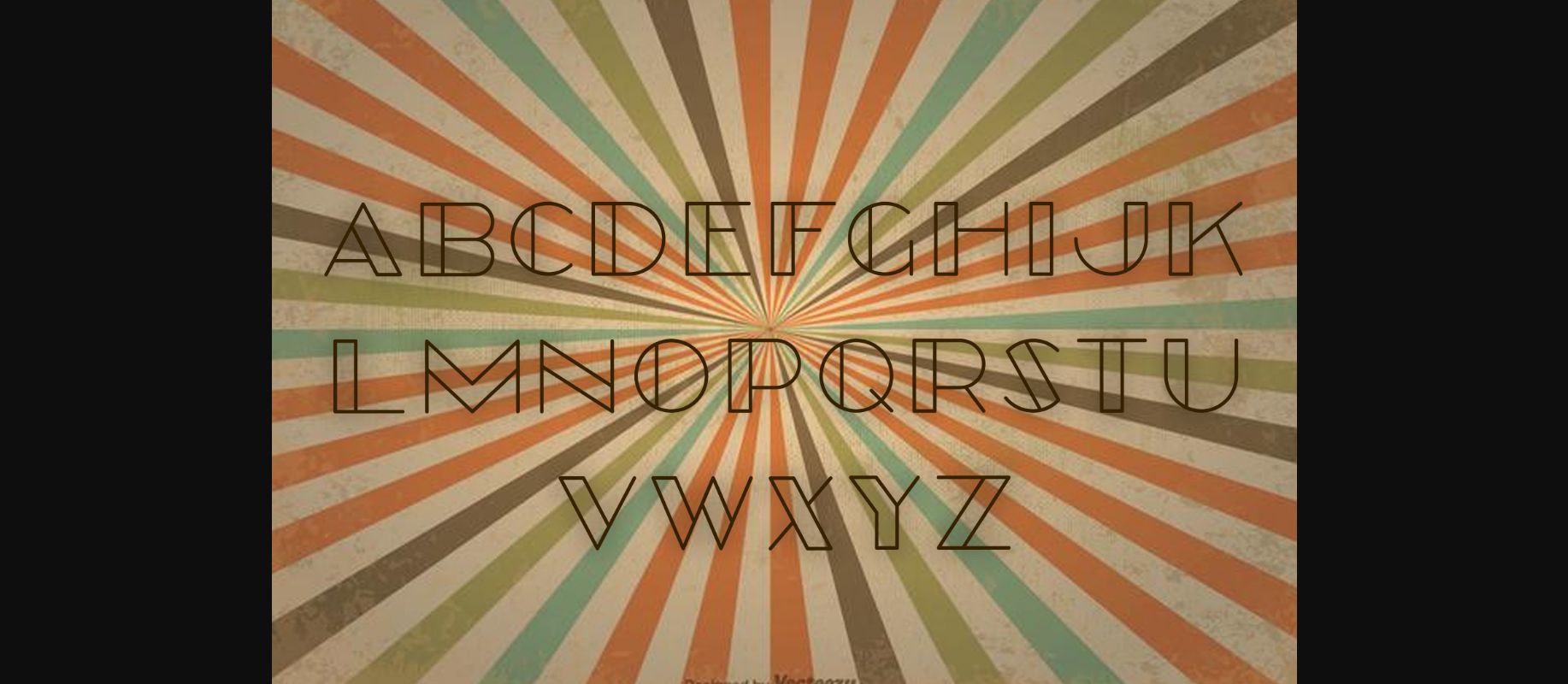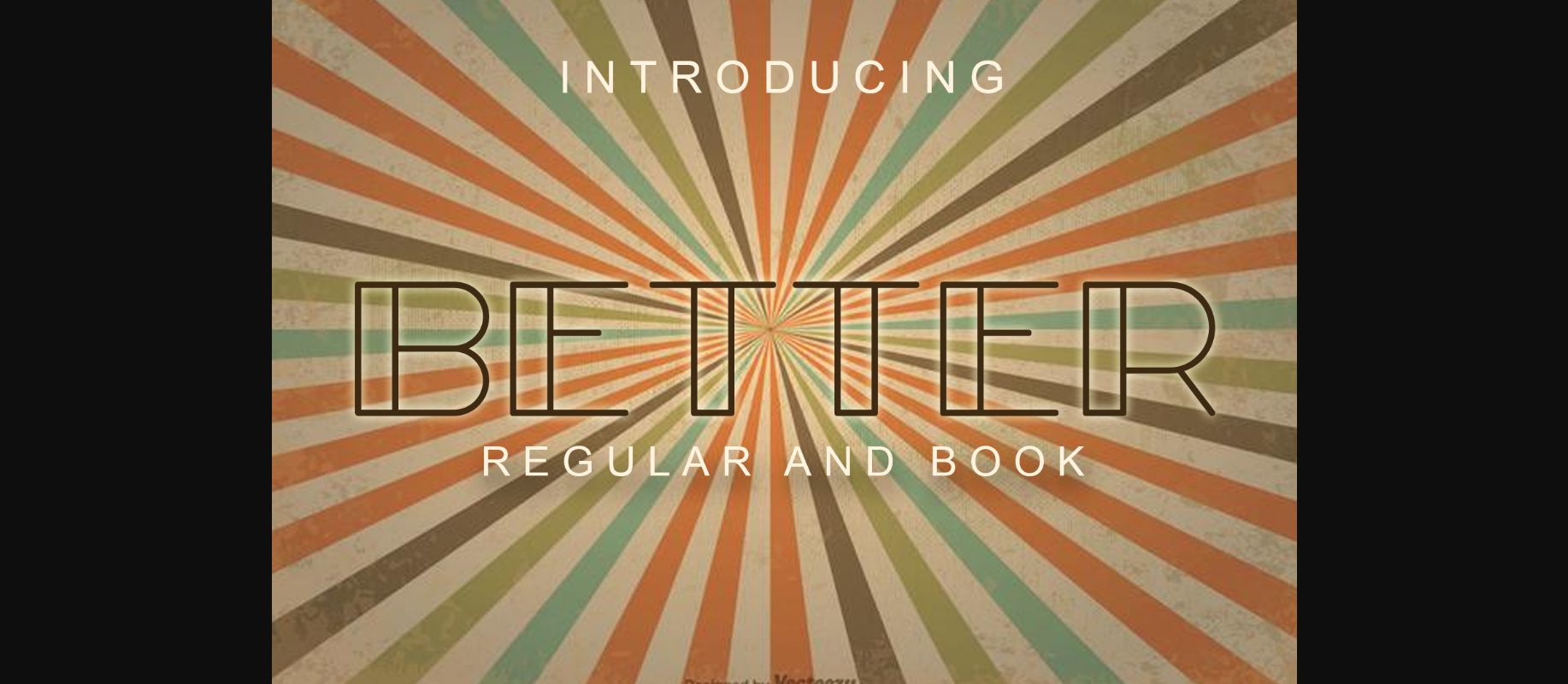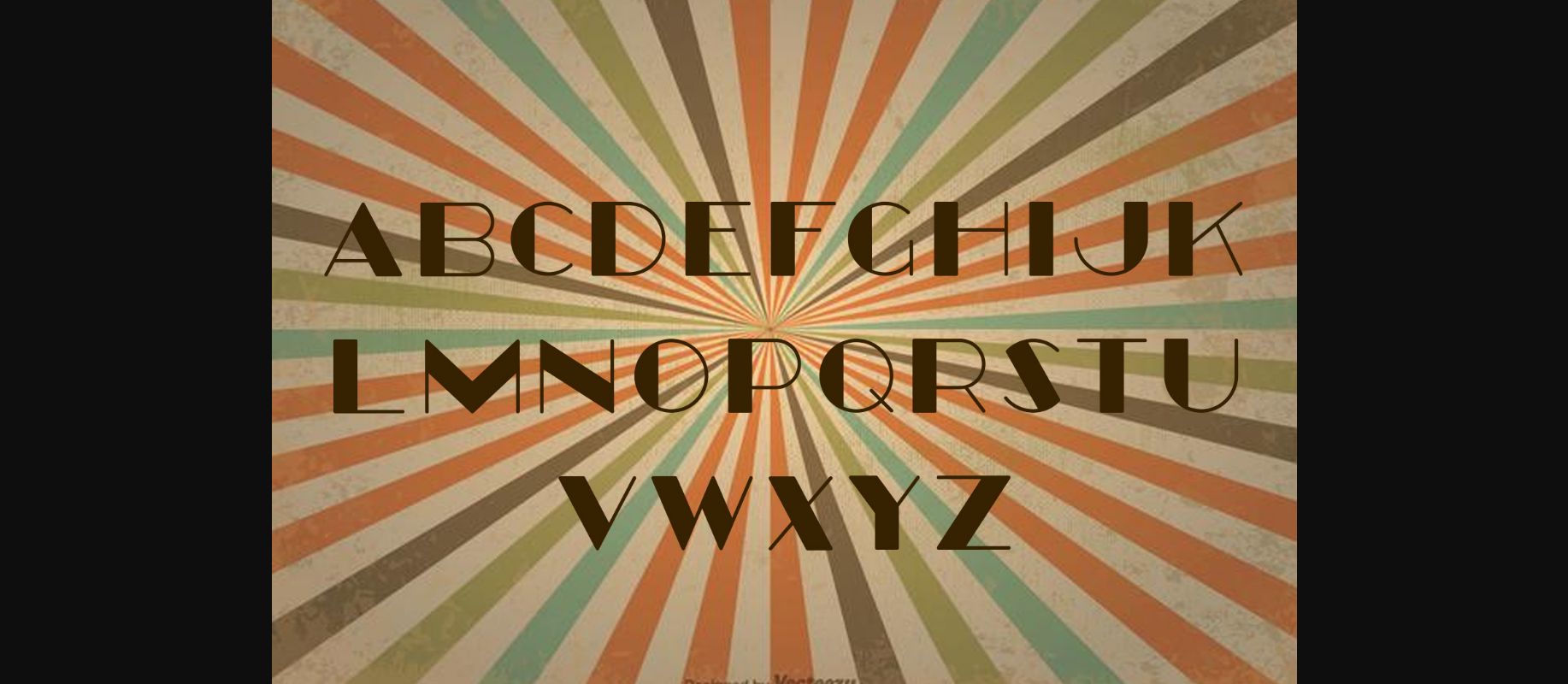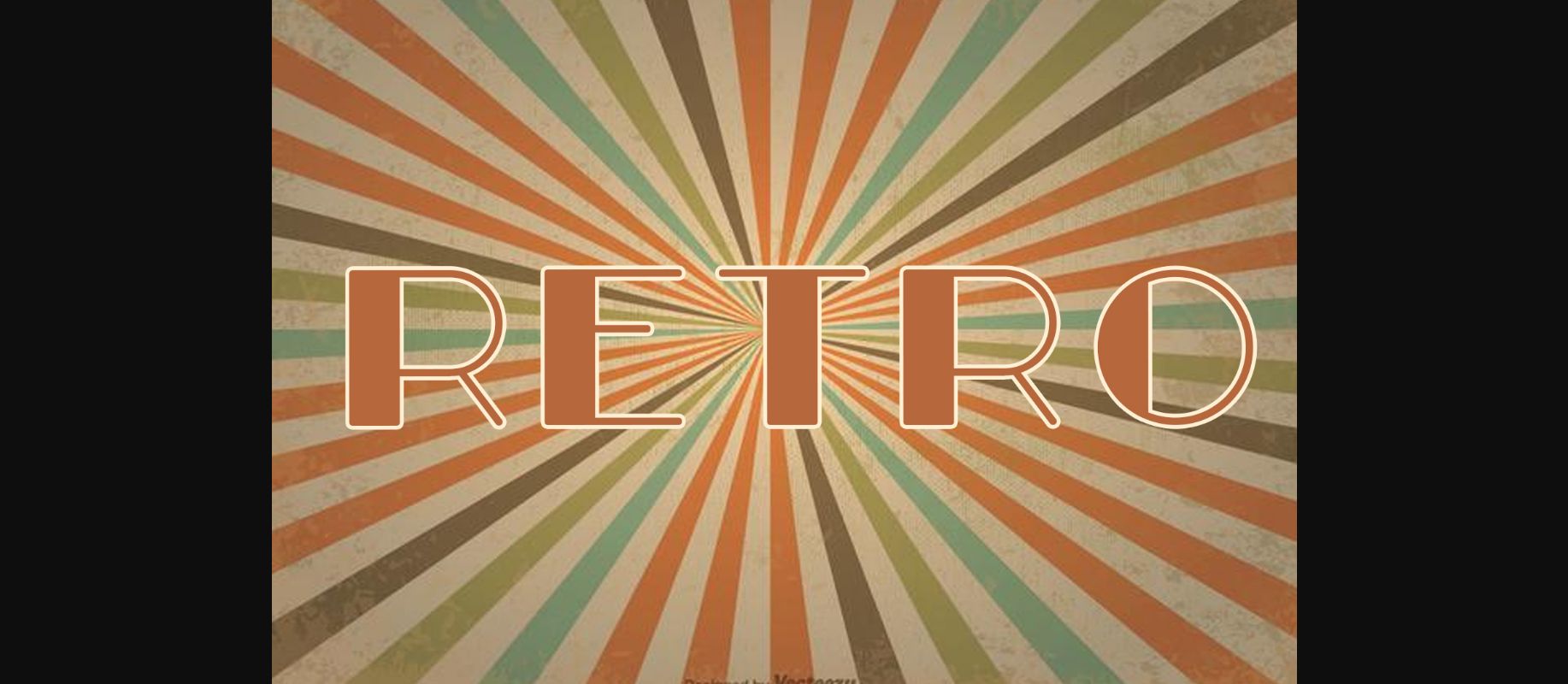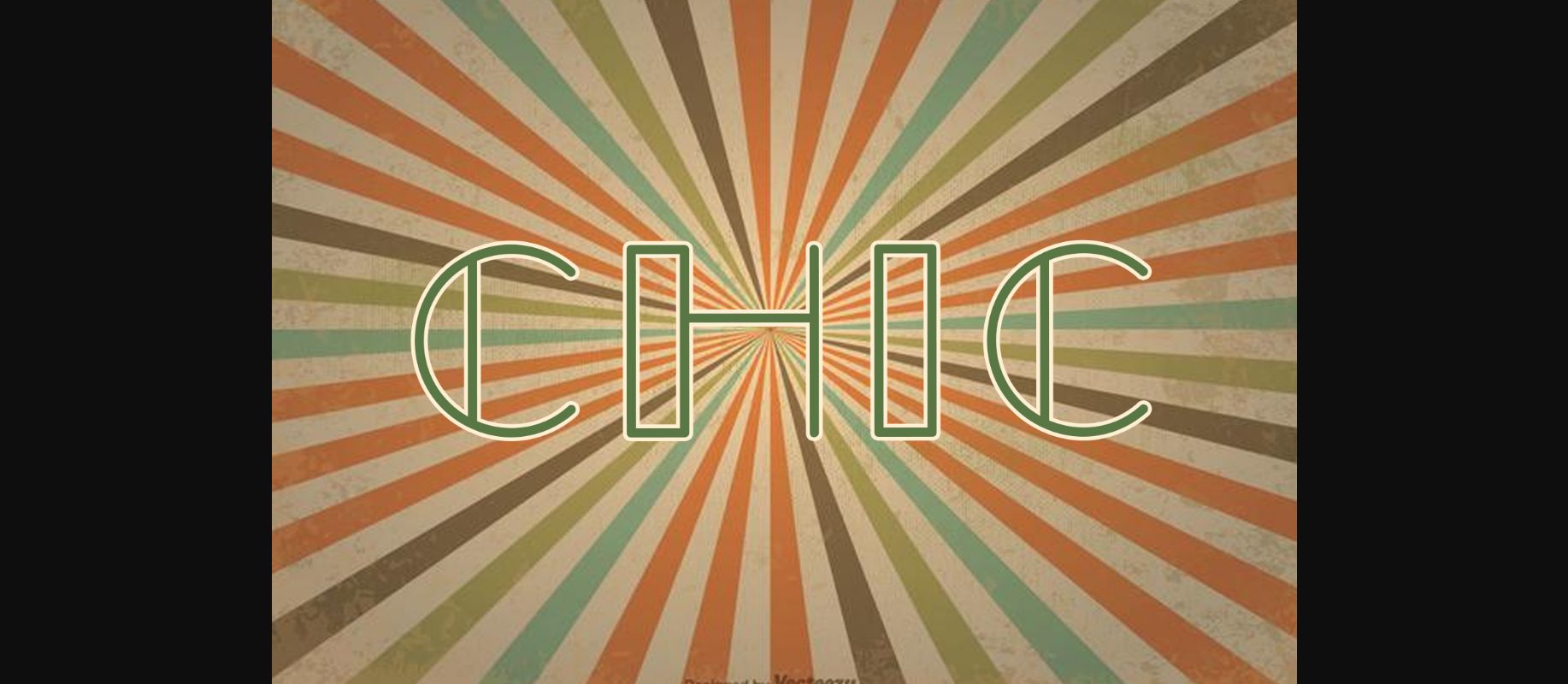
About Better Font
Better is an awesome retro-style font that comes in a regular and book version. It will look great on posters, shirts, banners, and much more.